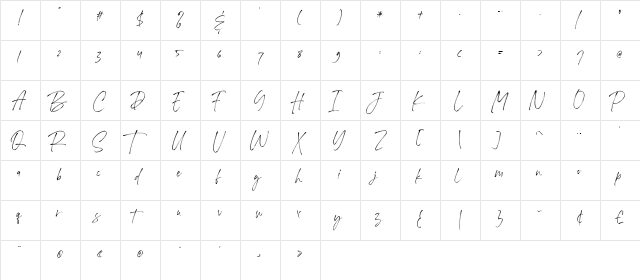
Flassty Demo Regular
| Foundry | Megi Satyo Widodo |
| Designer | Megi Satyo Widodo |
Design Context for Flassty Demo Typeface
Flassty Demo is a composed and adaptable typeface that performs quietly and consistently across a wide range of design contexts.